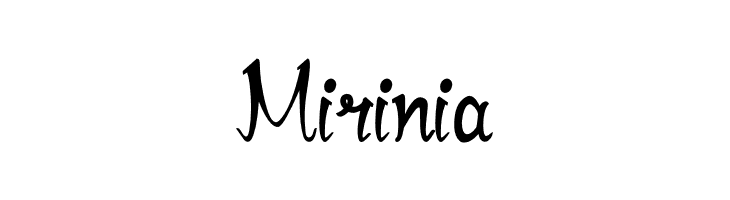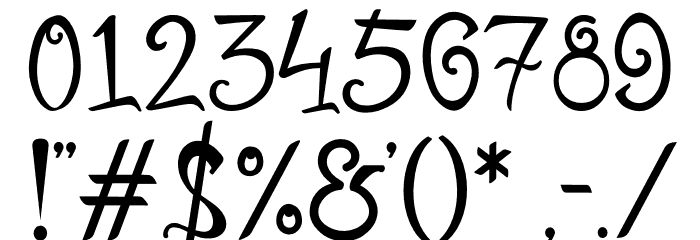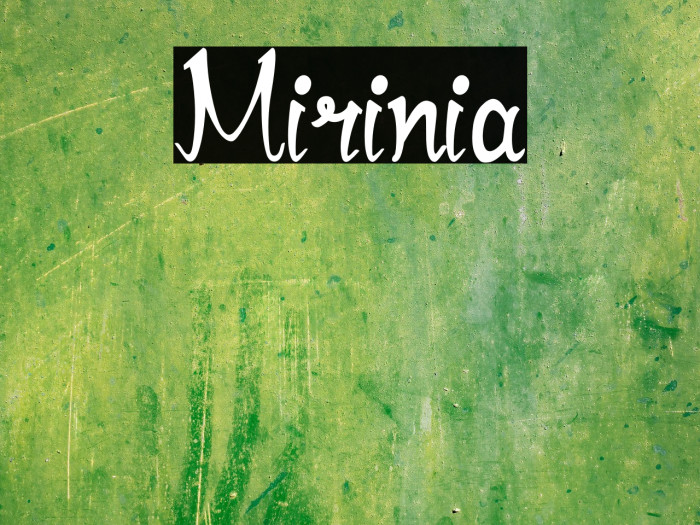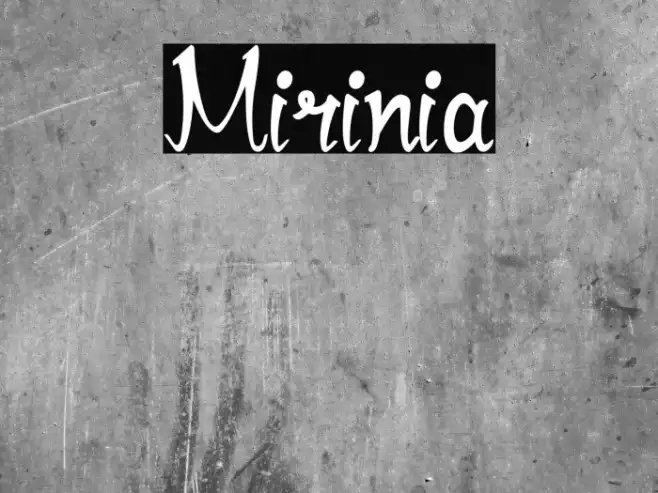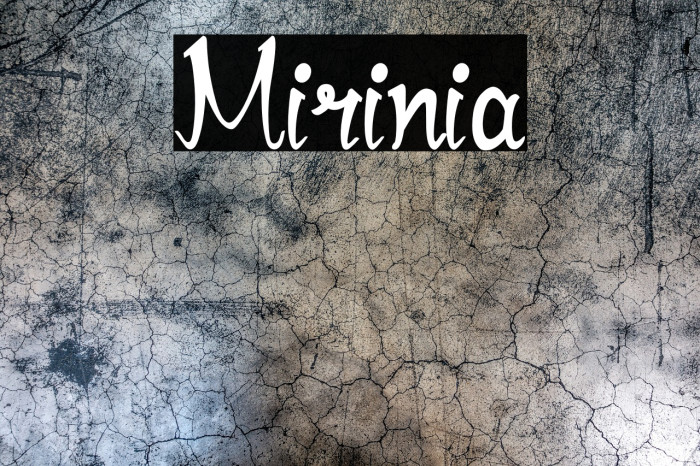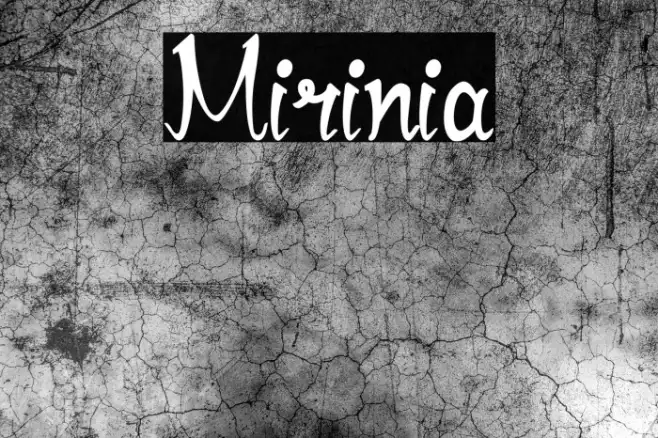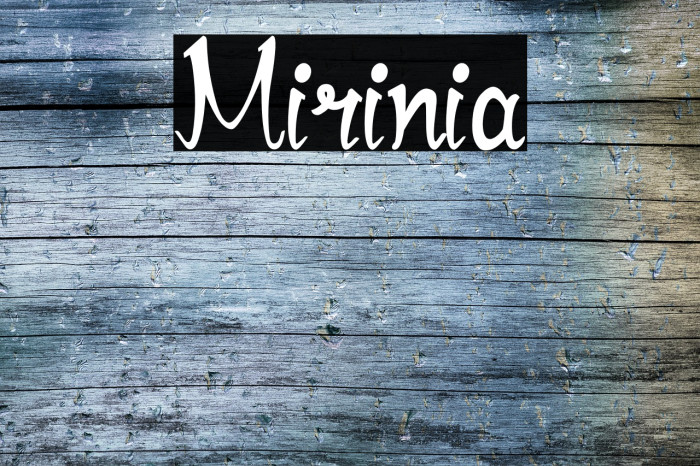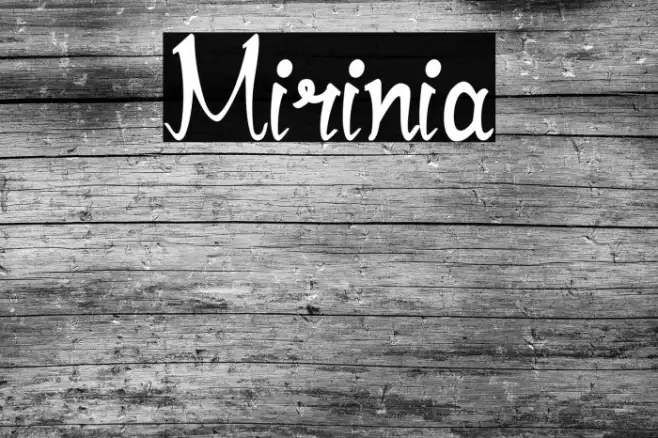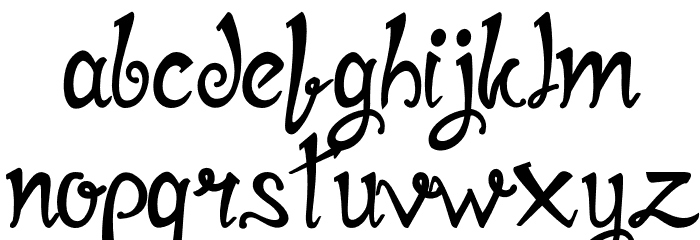
Mirinia Font
This font features a whimsical and artistic style, characterized by its flowing, cursive-like strokes and playful curves. The uppercase letters exhibit a unique blend of elegance and creativity, with each character having distinct flourishes and swirls that add to its decorative appeal. The lowercase letters maintain a consistent style, with smooth connections and a slightly exaggerated flair that enhances readability while maintaining a sense of artistic expression. The numerals are equally stylized, with a consistent flow that matches the overall theme of the font. Special characters are designed with the same attention to detail, ensuring a cohesive look across all elements. This font is perfect for projects that require a touch of creativity and elegance, such as invitations, greeting cards, or artistic branding.
A whimsical and artistic font with flowing, cursive-like strokes and playful curves.
• Proposed Projects: Ideal for invitations, greeting cards, artistic branding, and decorative designs.
• Category: Decorative/Display
• Bold: No
• Italic: Yes
• Weight: Regular
• Width: Normal
• Character Spacing: Normal
• Contrast: Medium
• Overall Style: Decorative
• Use Case: Headlines, Artistic designs, Invitations